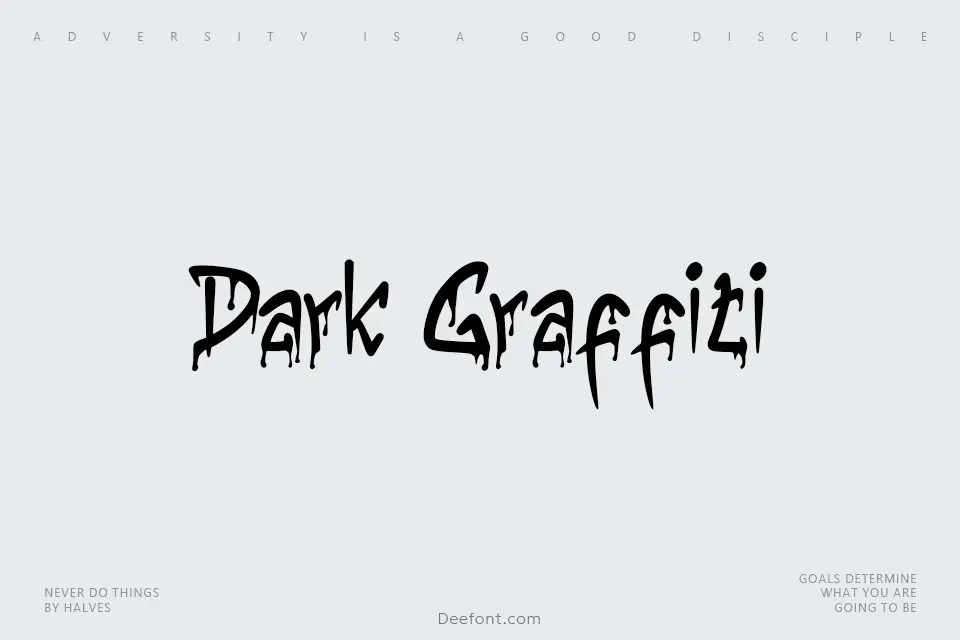
Dark Graffiti Font
Dark Graffiti is a light, paint-dripping graffiti font created by Satire Artwork that’s perfect for projects needing a unique and edgy look. With its distinctive dripping effect and authentic street art aesthetic, this font excels in album covers, streetwear designs, poster art, and urban-themed projects. The font brings a dynamic, contemporary energy to any design, making it ideal for designers seeking authentic graffiti-style typography for creative and commercial applications.